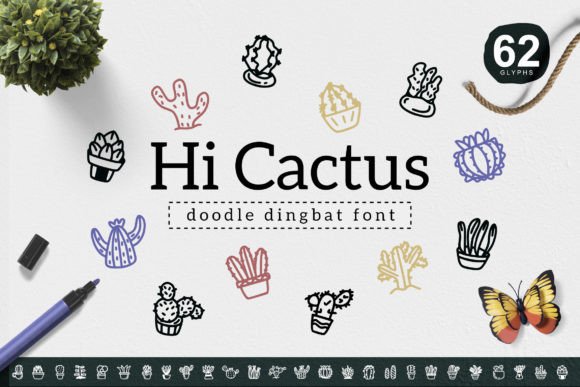
Welcome to the world of Hi Cactus font - where creativity meets simplicity. This captivating dingbats font is designed to turn your artistic visions into tangible masterpieces. Crafted with meticulous attention to detail, Hi Cactus is the perfect companion for designers, crafters, and anyone seeking a unique touch to their creative endeavors.
Hi Cactus's versatility extends beyond its aesthetic appeal. It's a font that adapts to your diverse design needs, seamlessly flowing from playful stickers to striking posters, eye-catching t-shirts to heartfelt cards. Unleash your imagination and let Hi Cactus add a dash of whimsy to your apparel graphics, creating designs that resonate with your audience.
With Hi Cactus as your design partner, you'll discover endless possibilities for expressing your individuality. Whether you're an established designer or just starting your creative journey, Hi Cactus empowers you to craft visuals that leave a lasting impression. Its user-friendly nature makes it accessible to everyone, inviting you to explore the depths of your creativity without any technical barriers.
The beauty of Hi Cactus lies in its simplicity - a simplicity that embraces the charm of minimalism. It's a font that speaks volumes without uttering a single word. Its clean lines and uncluttered design allow your message to shine through, making it an ideal choice for logos that demand clarity and impact.
As you delve into the world of Hi Cactus, you'll discover a font that sparks joy and inspires imagination. It's a font that transforms ordinary designs into captivating works of art, adding a touch of magic to everything it graces. Embrace the allure of Hi Cactus and embark on a creative adventure that will leave you feeling fulfilled and inspired.